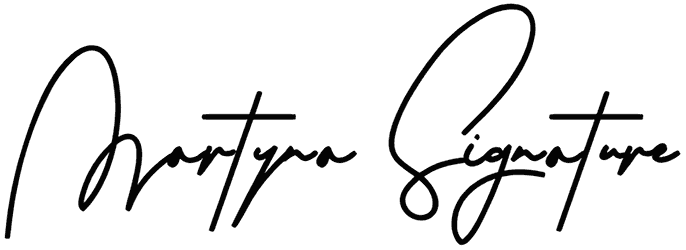
Martyna Signature Font
For centuries, the thin handwritten calligraphy style has been a fancy element on anything, and Martyna Signature is here to be that element. This script font gives an illusion of handwritten words to your work, and when its characters sit together to form words, they get an elegant, continuous style.
This useful signature font can be good for writing virtual letters, wedding invitations, fashion blog headers, magazine titles, and romantic flyers.